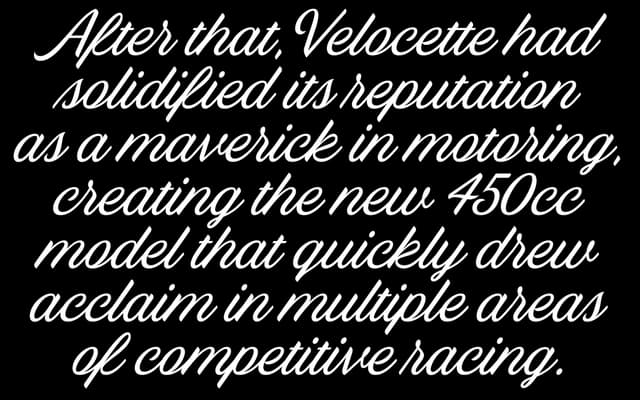
Blackbike Two
Beasts of England · 2017
An updated version of a 2017 display face from Beasts of England, evoking worn matte-black machinery and faded muscle.
The second iteration of Beasts of England's Blackbike, originally released in 2017, carries the spirit of something repainted one too many times and left to slowly disintegrate. The foundry frames it through a personal anecdote about a neighbour's battered motorbike, and that sense of weathered gravity informs the face's character. Well-suited to editorial headers, poster work or anything that benefits from a rough, lived-in quality.
The font's name, imagery and foundry aesthetic suggest a heavily stylised display face with blackletter or gothic influences, consistent with Beasts of England's rough, expressive output.